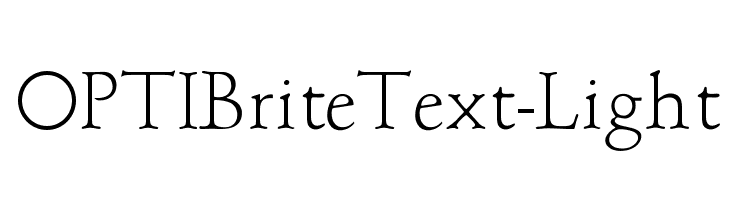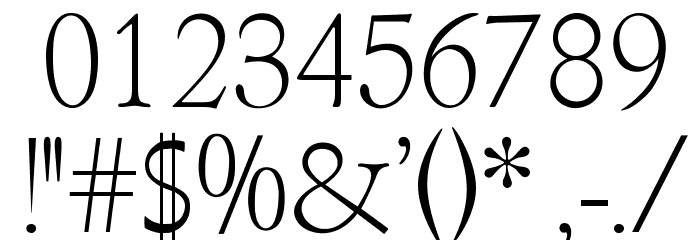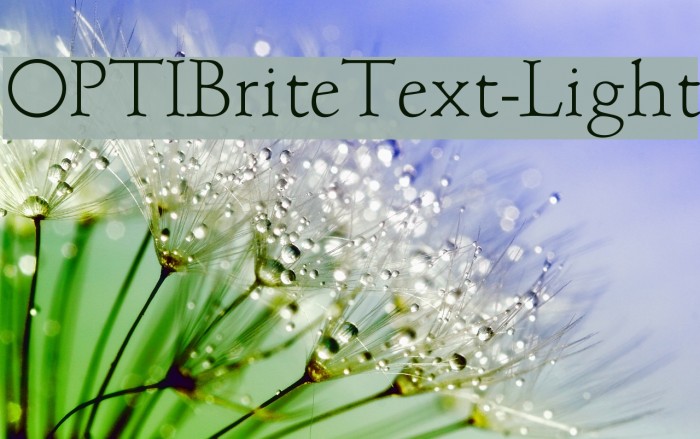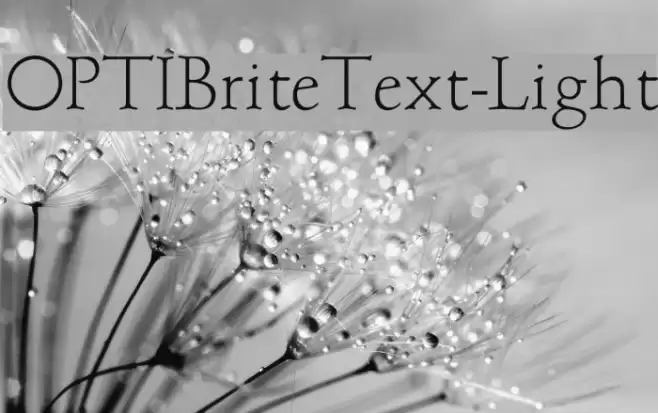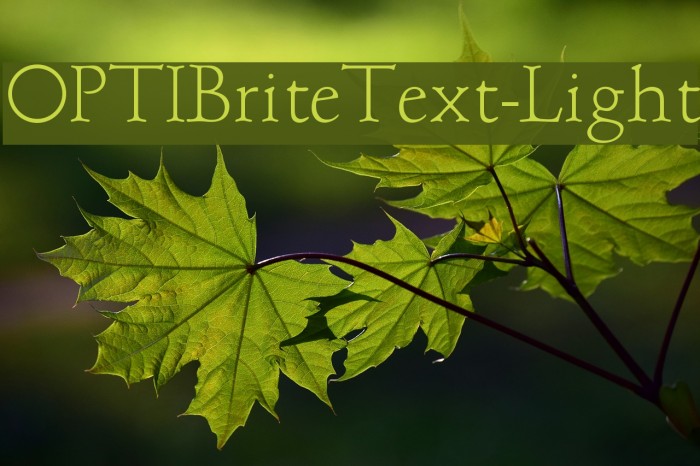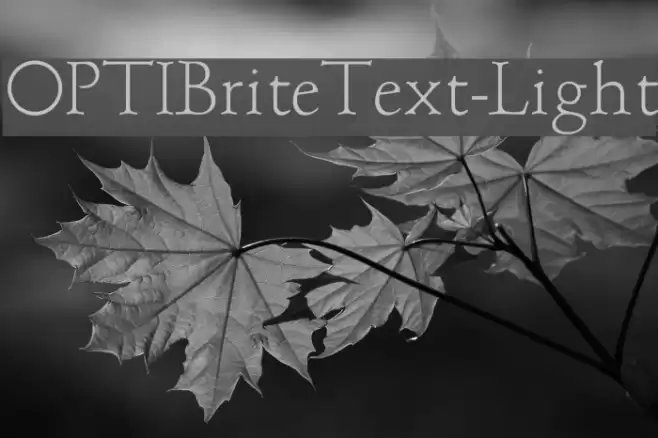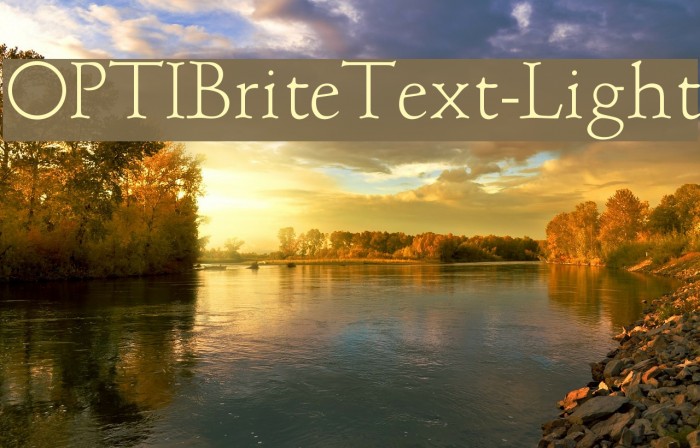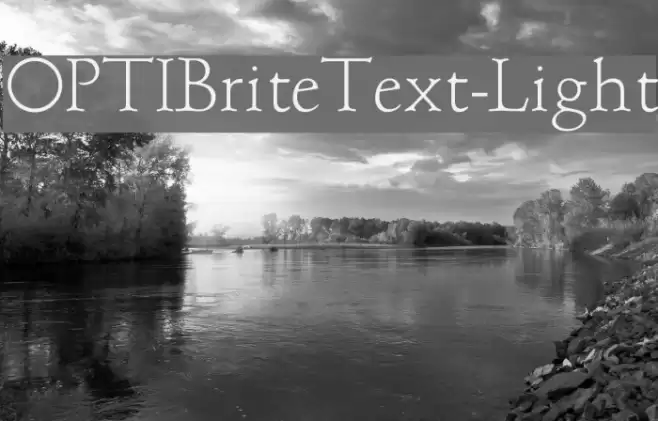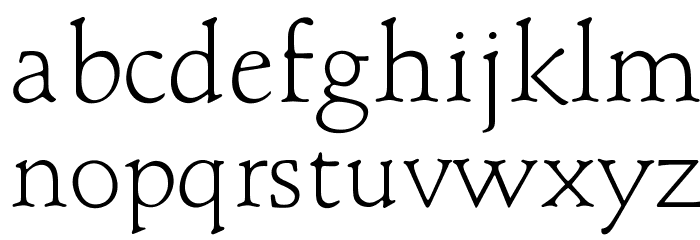
OPTIBriteText-Light Font
OPTIBriteText-Light Description
This font features a refined and elegant serif style, characterized by its thin, delicate strokes and high contrast between thick and thin lines. The uppercase letters exhibit a classic and sophisticated appearance, with sharp serifs and a slightly condensed form. The lowercase letters maintain a consistent style, offering a harmonious blend of curves and straight lines. The numerals are clear and legible, with a traditional design that complements the overall aesthetic. Special characters are thoughtfully designed, maintaining the font's elegant and timeless feel.
| Width | Condensed |
| Overall Style | Classic |
| Use Case | Headlines, Editorial design, Invitations |
| Proposed Projects | Ideal for projects requiring a touch of sophistication, such as wedding invitations, luxury branding, editorial design, and high-end product packaging. |